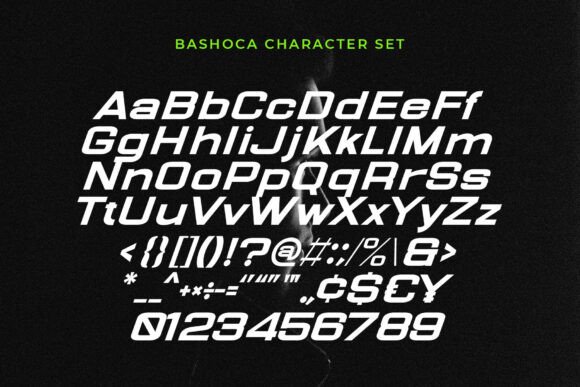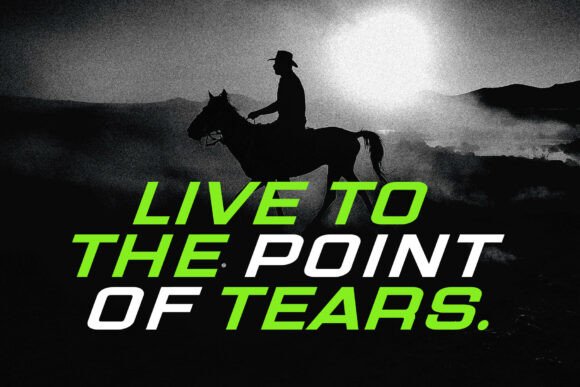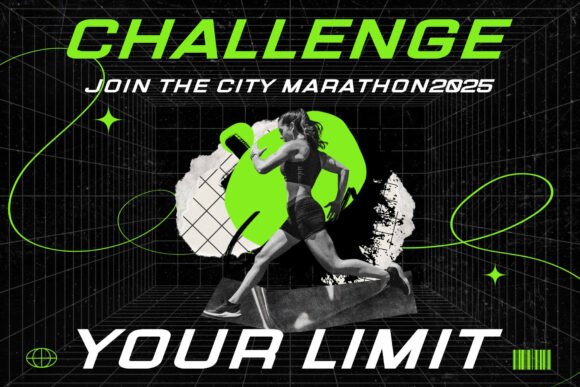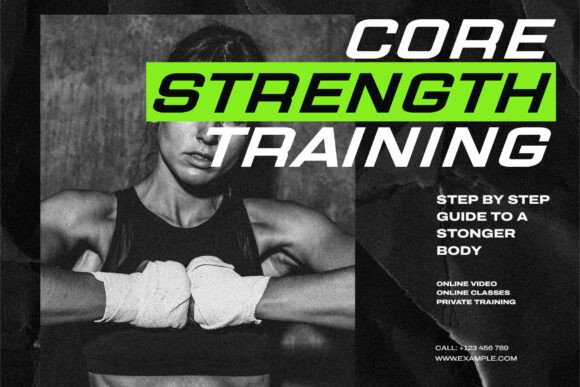
Introduction to Bashoca Font
Introducing Bashoca, a modern & sporty sans serif font.
This type of font is very suitable for your various needs such as branding projects, logos, social media posts, advertisements, labels, product packaging, photography, wedding designs, watermarks, invitation product designs, stationery, and any project .
Key Features of Bashoca Font
Why Choose Bashoca Font?
Bashoca Font offers exceptional quality and versatility, making it a valuable addition to your design toolkit. Whether you’re creating for personal projects or commercial use, Bashoca Font delivers professional results.